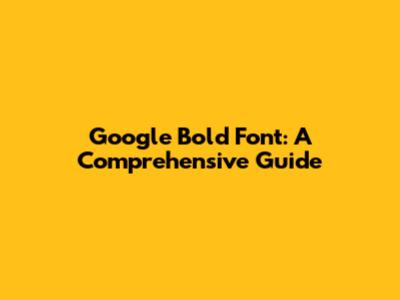
Google Bold Font: A Comprehensive Guide
Hey guys! Ever wondered how to make your text pop on Google? Well, you're in the right place! Let's dive deep into the world of Google bold fonts. We'll cover everything from why they're important to how to use them effectively. So, buckle up and get ready to become a bold font master!
Understanding the Importance of Bold Fonts in Google
Bold fonts are not just about making text look pretty. They play a crucial role in readability, SEO, and user experience. When you use bold fonts strategically, you guide your readers' eyes to the most important parts of your content. This is especially crucial in today's fast-paced digital world where attention spans are shorter than ever. Think about it: when you're skimming through a webpage, what catches your eye first? Probably the bolded words, right?
From an SEO perspective, using bold fonts can also subtly signal to Google what your content is about. By highlighting key phrases and keywords, you're essentially telling Google, "Hey, this is important! Pay attention!" This can help improve your search engine rankings and drive more organic traffic to your site. But remember, it's all about balance. Overusing bold fonts can actually have the opposite effect, making your content look cluttered and overwhelming.
Let’s not forget about accessibility. People with visual impairments often rely on clear and distinct formatting to navigate web pages. Using bold fonts correctly can significantly improve their browsing experience. It’s about making your content accessible and enjoyable for everyone, no matter their abilities. In summary, mastering the art of using bold fonts is about enhancing readability, boosting SEO, and improving user experience – all essential ingredients for a successful online presence.
Exploring Different Types of Bold Fonts
When it comes to bold fonts, you might think it's just a simple on/off switch. But the truth is, there's a whole spectrum of boldness out there! Different font families offer various weights, from light to extra bold, giving you plenty of options to play with. For example, a font like Roboto might have weights ranging from 100 (Thin) to 900 (Black), while another font like Open Sans offers a more limited range. Understanding these variations is key to creating visually appealing and effective content.
The type of bold font you choose can also significantly impact the overall tone and feel of your message. A super bold, heavy font might convey a sense of strength and authority, while a slightly bolder font can simply add emphasis without being too overpowering. Consider your brand's personality and the message you're trying to communicate when selecting a bold font. Is your brand playful and energetic, or serious and professional? Your font choice should reflect that.
Beyond the standard bold styles, there are also variations like semi-bold and extra-bold, each serving a unique purpose. Semi-bold fonts are great for subheadings or emphasizing text without drawing too much attention. Extra-bold fonts, on the other hand, are perfect for headlines or call-to-actions that you really want to stand out. Experiment with different weights and styles to see what works best for your content. Remember, it's not just about making text bold; it's about using bold fonts strategically to enhance your message and engage your audience.
Step-by-Step Guide: Applying Bold Fonts in Google Docs
Okay, let's get practical! Applying bold fonts in Google Docs is super easy. Here's a step-by-step guide to get you started:
- Select the Text: First, highlight the text you want to make bold. You can do this by clicking and dragging your mouse over the words or sentences.
- Click the "B" Icon: In the toolbar at the top of your Google Docs window, you'll see a big, friendly "B" icon. Click it, and voilà , your text is now bold!
- Use Keyboard Shortcuts: For a faster way, you can use keyboard shortcuts. On Windows, press
Ctrl + B. On a Mac, pressCommand + B. These shortcuts are a lifesaver when you're formatting a long document. - Adjust Boldness (If Available): Depending on the font you're using, you might have options to choose different levels of boldness (e.g., semi-bold, bold, extra-bold). Look for these options in the font menu or formatting options panel.
- Remove Bold Formatting: To remove bold formatting, simply select the bolded text and click the "B" icon again, or use the same keyboard shortcuts. It's like toggling a switch on and off.
Pro tip: Use bold fonts sparingly and strategically. Overusing them can make your document look cluttered and less readable. Focus on highlighting key information and important phrases.
Best Practices for Using Bold Fonts in Web Design
When it comes to web design, using bold fonts effectively is crucial for creating a visually appealing and user-friendly experience. Here are some best practices to keep in mind:
- Maintain Consistency: Use the same bold font style throughout your website to create a cohesive and professional look. Consistency is key to building a strong brand identity.
- Highlight Key Information: Use bold fonts to draw attention to important details, such as headlines, subheadings, and call-to-actions. This helps users quickly scan and understand your content.
- Improve Readability: Use bold fonts to break up large blocks of text and make your content easier to read. This is especially important for longer articles or web pages.
- Consider Contrast: Ensure that your bold font has enough contrast with the background color to be easily readable. Poor contrast can strain the eyes and make your content difficult to consume.
- Avoid Overuse: Don't go overboard with bold fonts. Too much boldness can make your website look cluttered and overwhelming. Use them sparingly and strategically.
Additionally, think about mobile responsiveness. Make sure your bold fonts look good on all devices, from desktops to smartphones. Test your website on different screen sizes to ensure optimal readability. Remember, a well-designed website is not just about aesthetics; it's about providing a seamless and enjoyable user experience.
Troubleshooting Common Issues with Google Bold Fonts
Sometimes, things don't go as planned. You might encounter issues with Google bold fonts. Here are some common problems and how to fix them:
- Font Not Displaying Correctly: If your bold font isn't showing up as bold, it could be a browser caching issue. Try clearing your browser's cache and cookies. Alternatively, try a different browser to see if the problem persists.
- Inconsistent Boldness: If some of your bold text appears lighter than others, it could be due to different font weights being applied. Make sure you're using the same bold weight throughout your document or website.
- Font Not Available: If you're using a custom font, it might not be properly loaded or supported by the browser. Check your font embedding code and ensure that the font file is accessible.
- Compatibility Issues: Some older browsers may not fully support certain font features. Test your website on different browsers and devices to identify any compatibility issues.
If you're still having trouble, consult the Google Fonts documentation or seek help from a web development forum. There are plenty of resources available online to help you troubleshoot font-related issues.
Advanced Tips and Tricks for Google Bold Fonts
Ready to take your bold font game to the next level? Here are some advanced tips and tricks to help you stand out:
- Use CSS for Precise Control: If you're working with web design, use CSS to fine-tune the appearance of your bold fonts. You can adjust the font weight, letter spacing, and other properties to create a unique and customized look.
- Combine Bold Fonts with Other Styles: Experiment with combining bold fonts with other text styles, such as italics or underlines, to create visual interest and hierarchy.
- Create Visual Hierarchy: Use bold fonts to guide your readers' eyes through your content and create a clear visual hierarchy. Start with bold headlines, followed by bold subheadings, and then use bold text sparingly within the body of your text.
- Use Bold Fonts for Emphasis: Use bold fonts to emphasize key words or phrases that you want your readers to remember. This is a great way to reinforce your message and make your content more memorable.
By mastering these advanced techniques, you can transform your content from ordinary to extraordinary. So go ahead, experiment with different styles and techniques, and see what works best for you. With a little practice, you'll be a bold font pro in no time!
Conclusion: Mastering the Art of Google Bold Fonts
So there you have it, folks! A comprehensive guide to mastering the art of Google bold fonts. We've covered everything from the importance of bold fonts to best practices, troubleshooting tips, and advanced techniques. Now it's your turn to put your newfound knowledge into practice.
Remember, bold fonts are not just about making text look pretty. They're about enhancing readability, improving SEO, and creating a better user experience. By using bold fonts strategically and thoughtfully, you can elevate your content and engage your audience like never before. So go forth and boldify your world!